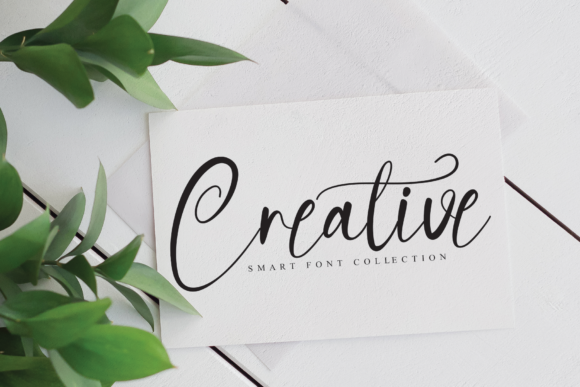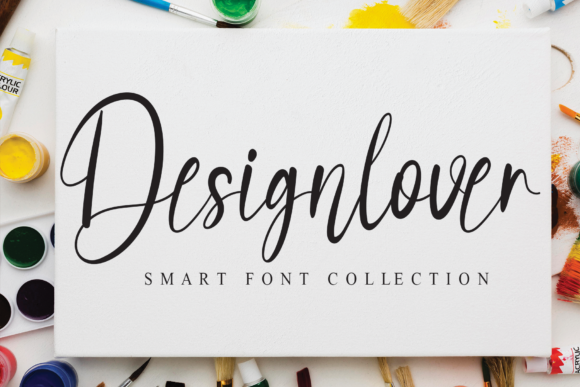
Lovestorys Font
db-ku.com - Script & Handwritten -- Lovestorys is an elegant, flowing and delicate script font. It can be used for a variety of inspired ideas. Fall in love with this beautiful design and explore its endless opportunities.